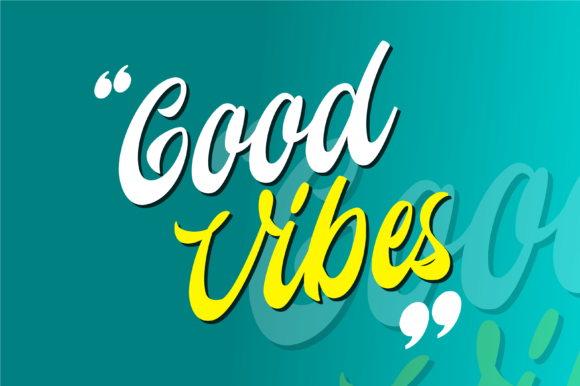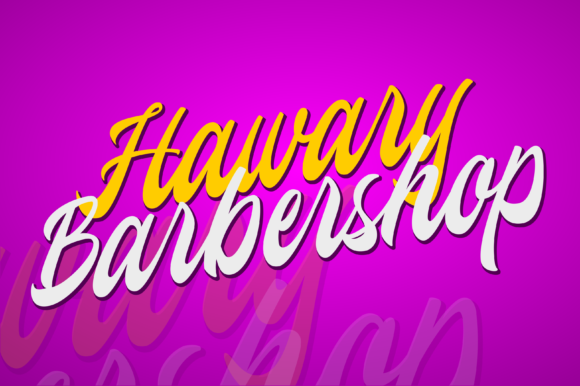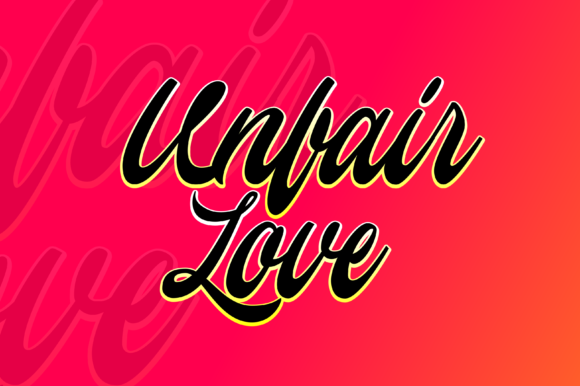
Introduction to Hovercity Font
The Hovercity is a bold script font.
It’s striking look makes it perfect to make any design stand out with an unique look It’s suitable for many projects, but especially for displays, titles, and logos.
Key Features of Hovercity Font
Why Choose Hovercity Font?
Hovercity Font offers exceptional quality and versatility, making it a valuable addition to your design toolkit. Whether you’re creating for personal projects or commercial use, Hovercity Font delivers professional results.